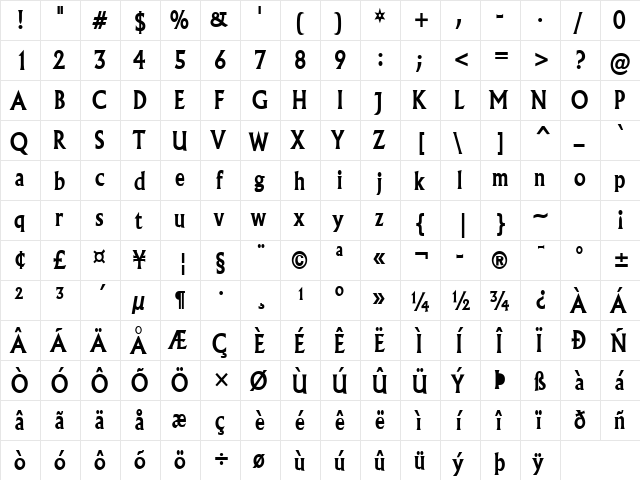
Flair-Condensed Bold
Design Context for Flair-Condensed Typeface
Flair-Condensed is a composed and adaptable typeface that performs quietly and consistently across a wide range of design contexts. Its bold stroke weight gives it real presence on the page. The condensed width makes it efficient for tight spaces without sacrificing legibility.